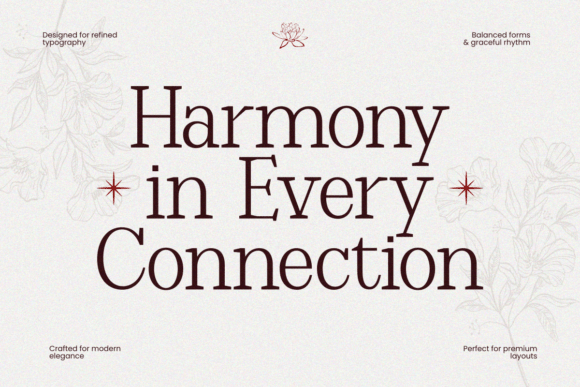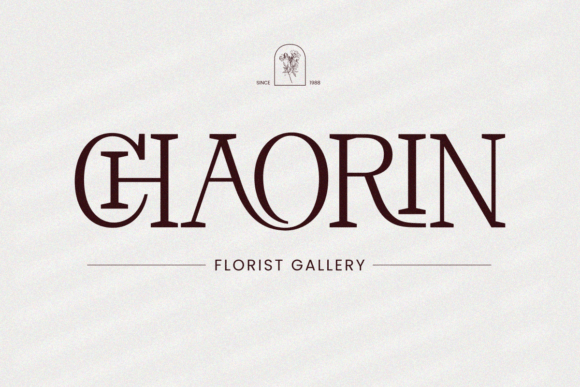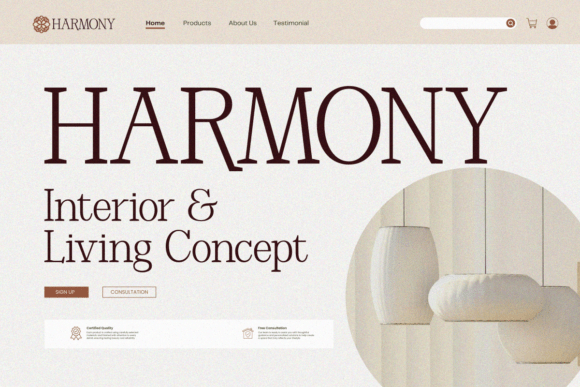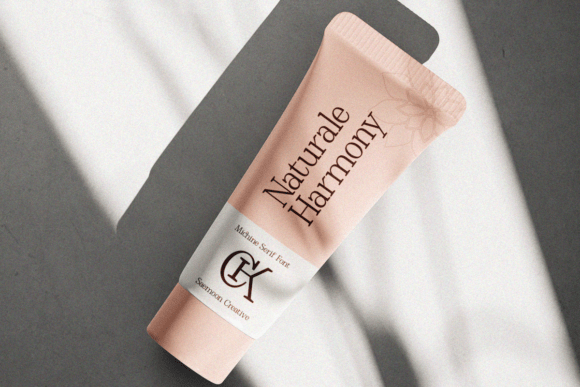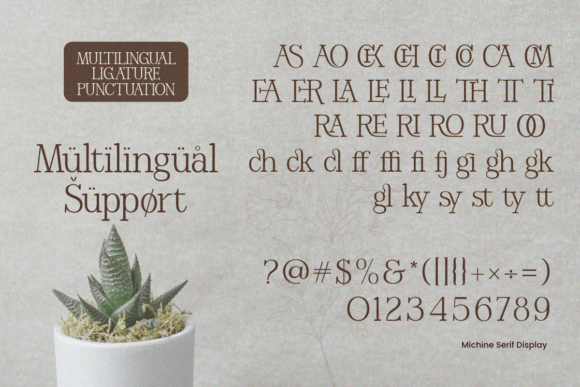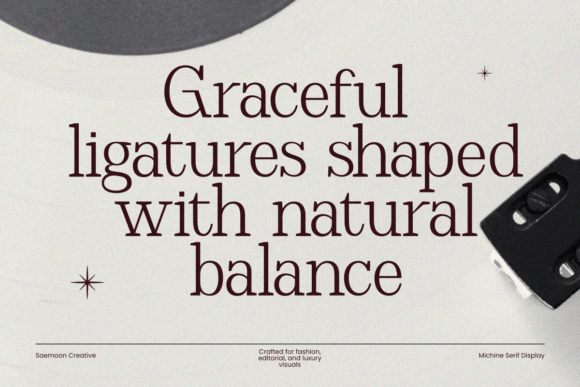
Introduction to Michine Font
Have you ever stared at a blank canvas, unsure of where to start your next creative project? You’ve got a vision, but the words just won’t come. This is where a great font can be your best friend – the perfect companion to help bring your ideas to life. For designers, the right font can be the difference between a mediocre design and a truly stunning one.
Enter Michine Font, a classic serif display typeface that exudes elegance and sophistication. With its refined details and carefully crafted ligatures, Michine Font is the perfect choice for designers looking to add a touch of luxury to their work. Whether you’re working on a premium branding project or creating a stunning editorial layout, Michine Font is a valuable resource that’s sure to elevate your design game.
Key Features of Michine Font
- High-quality design: Michine Font is a well-crafted font ideal for creative projects that require a unique and professional touch.
- Unique characteristics: The font’s unique style and design elements make it an excellent choice for creative projects that require a distinctive look.
Honest Review: Michine Font
I recently stumbled upon the Michine Font while searching for a high-quality, free download for a creative project. I must say, I was impressed with its overall design and versatility.
What works well: ✨ The font has a modern and sleek design that makes it perfect for digital projects. The Michine Font is available in a variety of styles and weights, making it an excellent addition to any design resource. The transparent background allows for seamless integration with any design element.
Here are some of the key features that caught my attention:
- High-quality design that’s perfect for digital projects
- Available in various styles and weights
However, there are a few limitations to consider: ⚠️ The font may not be suitable for print projects due to its digital design. Additionally, some users may find the font too modern or trendy.
Overall, I’m impressed with the Michine Font and would highly recommend it to designers looking for a high-quality, free download for their creative projects.
Tips for Getting the Most Out of Michine Font
For the best results, use Michine Font with a transparent background to create a clean and modern look. You can also experiment with different font sizes and colors to add depth and visual interest to your designs.
Common Use Cases for Michine Font
Michine Font is ideal for a variety of creative projects, including branding, marketing materials, and social media graphics. It’s also great for creating high-quality designs for websites, blogs, and other online platforms.